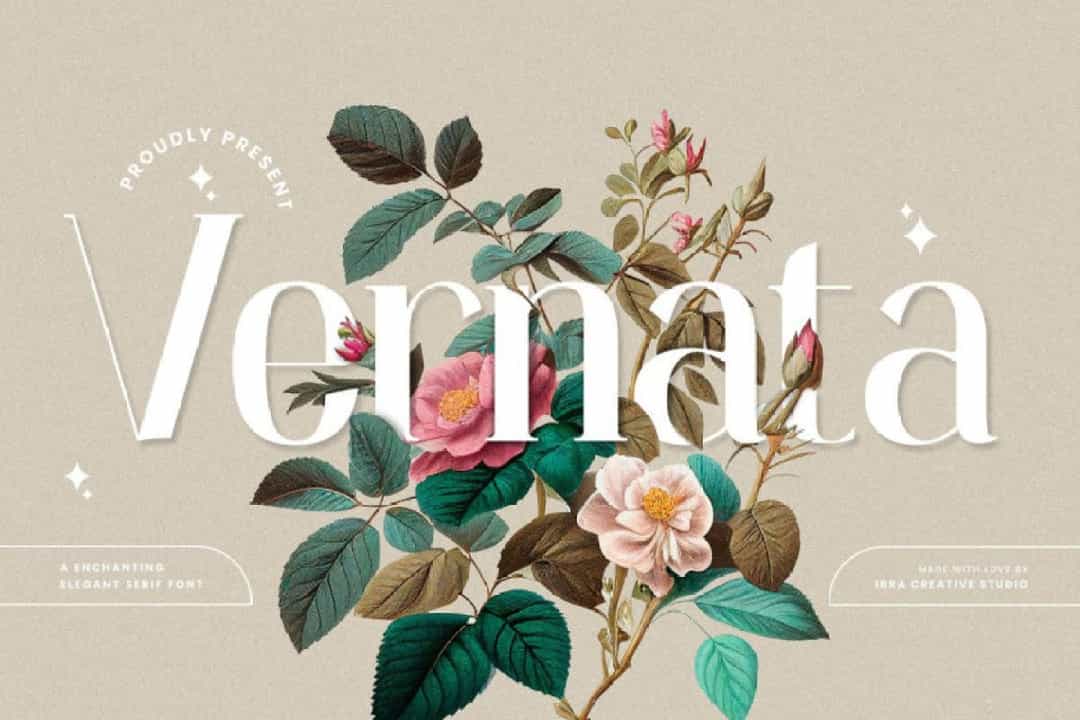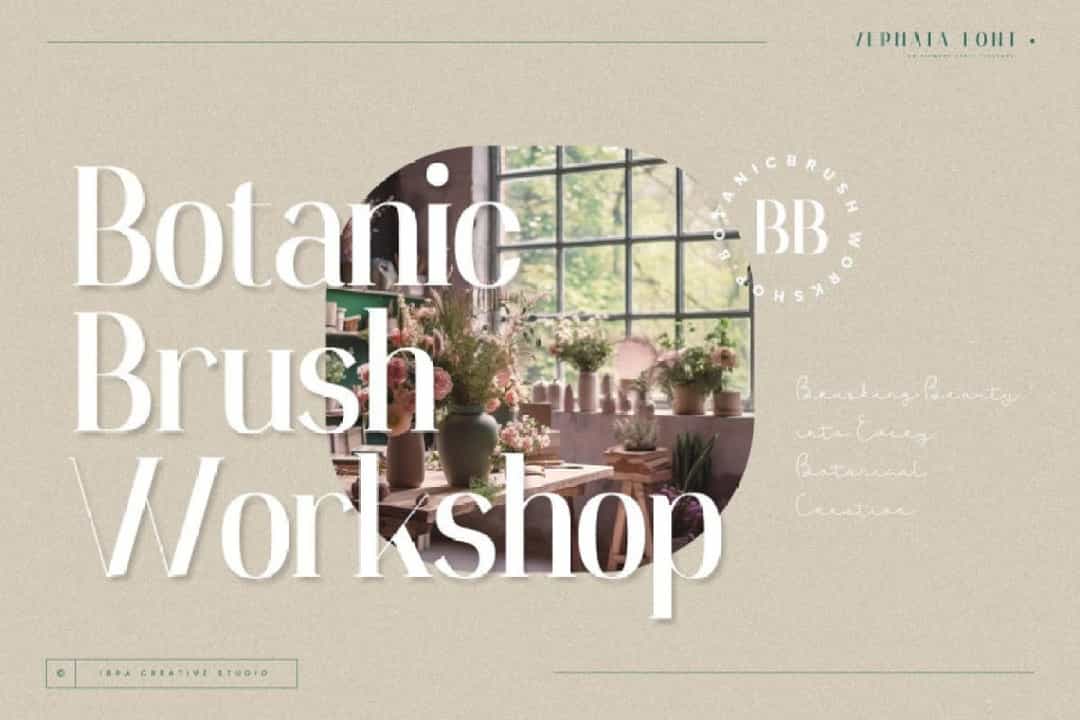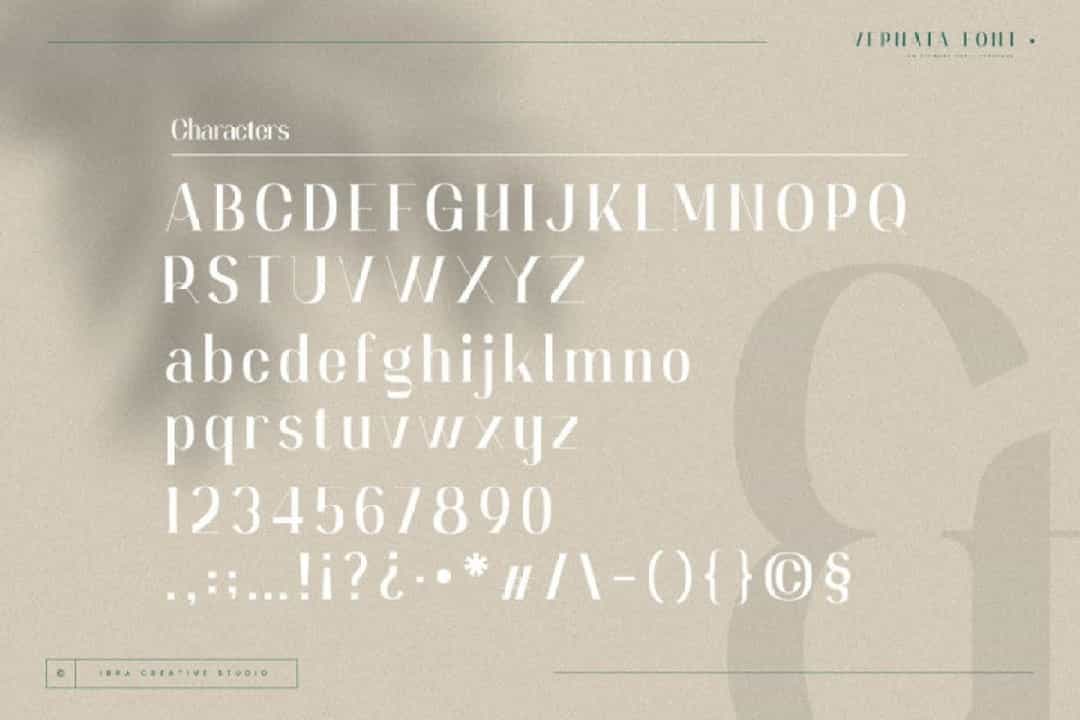
Vernata is an elegant serif font that stands out with its timeless beauty and refined appeal. Each letter boasts carefully-designed letters with perfectly balanced straight lines and curvatures to radiate grace and elegance.